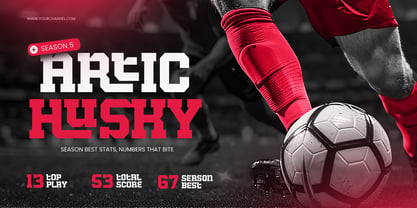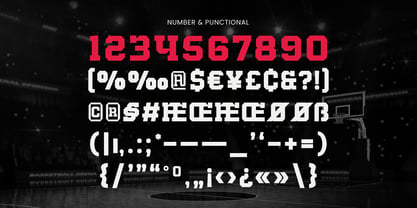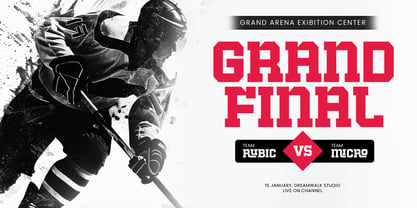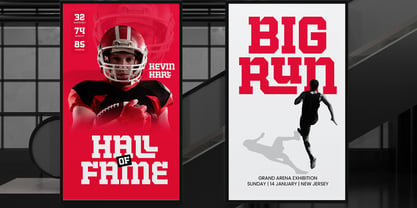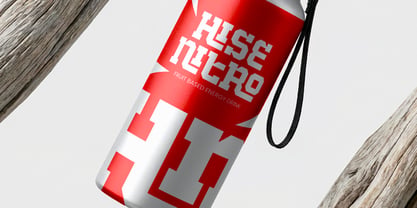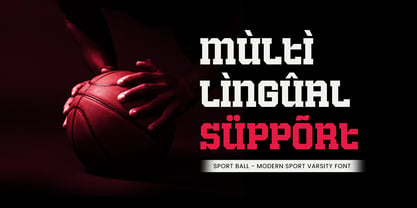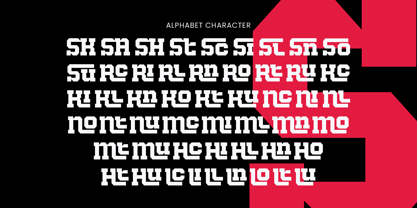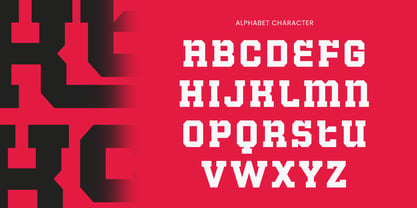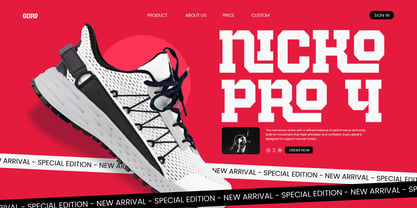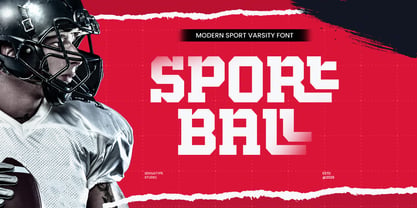
Sportball
SPORT BALL is a modern sport varsity font crafted to deliver strength, energy, and classic athletic character with a contemporary edge. Featuring bold varsity-inspired letterforms and a confident structure, this typeface creates a competitive visual tone that feels powerful, spirited, and instantly recognizable.
Built for sports-focused branding, SPORT BALL works perfectly across team logos, jersey-style graphics, tournament posters, school branding, championship banners, event promotions, social media sports content, and headline-driven marketing visuals. Its strong varsity construction keeps every word impactful and readable across both digital and print layouts.
Whether you’re creating a school team identity, designing a sports event campaign, building a fitness brand, or producing bold athletic graphics, SPORT BALL provides a dynamic varsity foundation that makes your typography feel energetic, strong, and ready to win.
Inspiration Behind SPORT BALL
SPORT BALL is inspired by classic varsity lettering and modern athletic branding—where bold block forms, team spirit, and competitive energy define the visual style. The design focuses on strong structure and dynamic rhythm to support sports identities, tournament visuals, and high-impact promotional typography with a fresh modern feel.
SPORT BALL Font Features:
• Modern varsity letterforms with bold athletic character
• Perfect for team logos, sports branding, and event headlines
• Strong readability for posters, banners, and competitive visuals
• Ideal for school sports, tournaments, and fitness campaigns
• Uppercase, lowercase, numerals, and punctuation included
• OpenType features for polished professional typesetting
Perfect For
• Team logos, tournament branding, and athletic identity systems
• Tournament posters, championship banners, and event promotions
• School sports campaigns, college branding, and fitness visuals
• Social media graphics, digital ads, and sports marketing layouts
• Headlines, merchandise graphics, and competitive design projects
Multilingual Support
Bring winning energy to your visuals with SPORT BALL—a modern sport varsity font built for bold athletic impact. 🏆✨